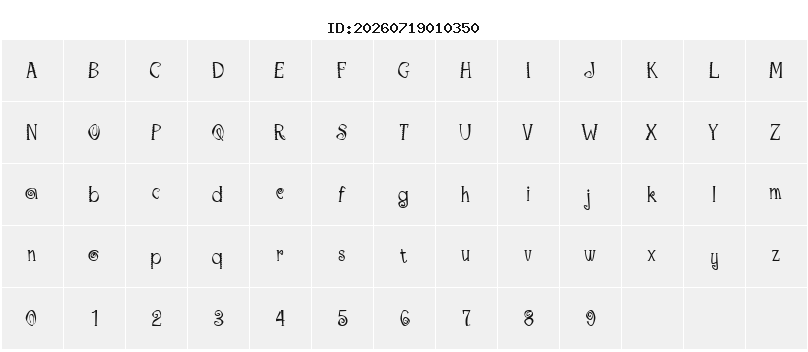
Copacabana Preview
• Font Name: Copacabana
• Full Font Name: Copacabana
About Copacabana.ttf
Copacabana.ttf is a modern, elegant sans-serif font designed for ultimate readability and visual harmony. Perfect for branding, headlines, web design, and print materials.